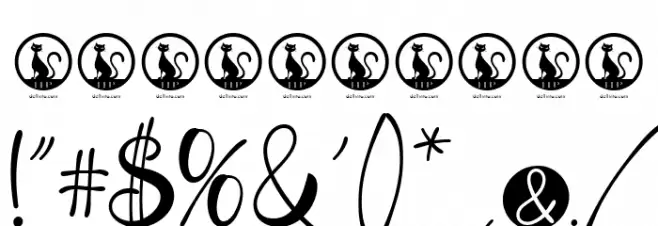
Libertinas-co.ffp Font
Libertinas-co.ffp Description
This font features an elegant and flowing script style, characterized by its smooth, cursive lines and graceful curves. The uppercase letters are bold and expressive, with distinctive loops and flourishes that add a touch of sophistication. The lowercase letters maintain a consistent style, with a slightly more delicate appearance, enhancing the overall fluidity of the text. The numerals and special characters are designed to complement the alphabet, maintaining the same artistic flair. This font exudes a sense of elegance and creativity, making it ideal for projects that require a personal and artistic touch.
An elegant, flowing script font with bold, expressive uppercase and delicate lowercase letters from Uncategorized fonts.